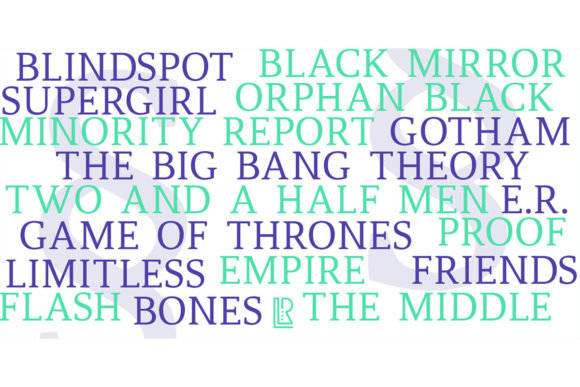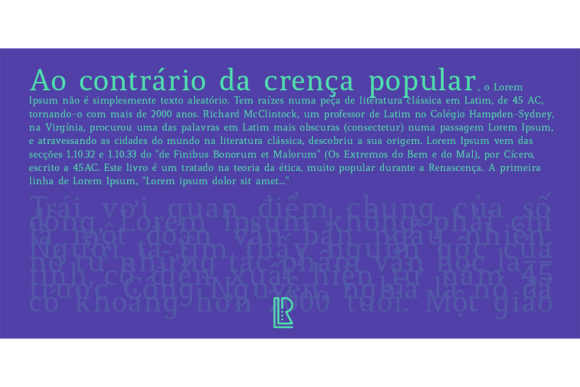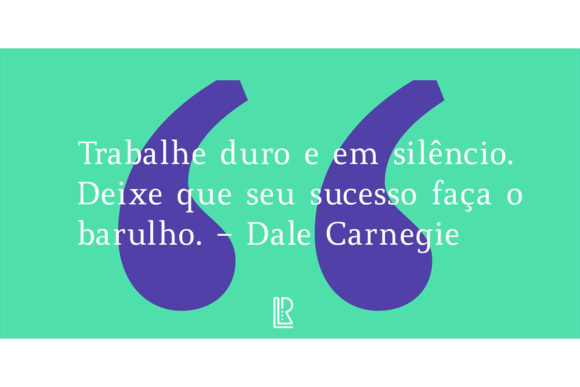
Introduction to Guonia Font
Have you ever found yourself stuck in a creative rut, searching for the perfect font to bring your project to life? You’re not alone. Designers often face this challenge, and it’s where a reliable design resource like the Guonia Font comes in handy. With its adaptability and sleek aesthetic, Guonia Font is an ideal choice for a wide range of applications, from book texts to business reports and advertisements.
What sets Guonia Font apart is its unique balance of style and functionality. Whether you’re working on a free download project or a high-end corporate design, this font is sure to impress. Its versatility also makes it perfect for designers who need a font with a transparent background or a high-quality image that can be used across various mediums.
Key Features of Guonia Font
- Transparent background: The font features a transparent background, allowing for easy customization and integration with various design elements.
- High-quality design: Guonia Font is designed with high-quality in mind, ensuring crisp and clear typography for a professional look.
- High-resolution support: Guonia Font is designed to support high-resolution displays, ensuring that it looks great on various devices and screens.
- Unique characteristics: Guonia Font features a unique blend of modern and vintage elements, making it a great choice for creative projects that require a distinctive look.
Honest Review: Guonia Font
I recently came across the Guonia Font, and I’m excited to share my thoughts on this design resource. As a designer, I’m always on the lookout for high-quality fonts that can elevate my creative projects.
One of the things that stood out to me about the Guonia Font is its clean and modern aesthetic. ✨ The font is perfect for designs that require a professional and sophisticated look. Plus, it’s available for free download, which is a huge bonus for designers on a budget.
Here are some of the key features that I love about the Guonia Font:
- Transparent background, making it easy to use with any design
- Modern and clean aesthetic that’s perfect for professional designs
While the Guonia Font is a great addition to any design arsenal, there are a few limitations to be aware of: ⚠️ it’s only available in a few weights, and it may not be suitable for designs that require a bold or dramatic look.
Overall, I’m really impressed with the Guonia Font, and I think it’s a great resource for designers who are looking for a high-quality, free font that can help take their creative projects to the next level.
Common Use Cases for Guonia Font
Guonia Font is perfect for creative projects, such as logos, posters, and social media graphics. It’s also great for business cards, brochures, and other marketing materials.